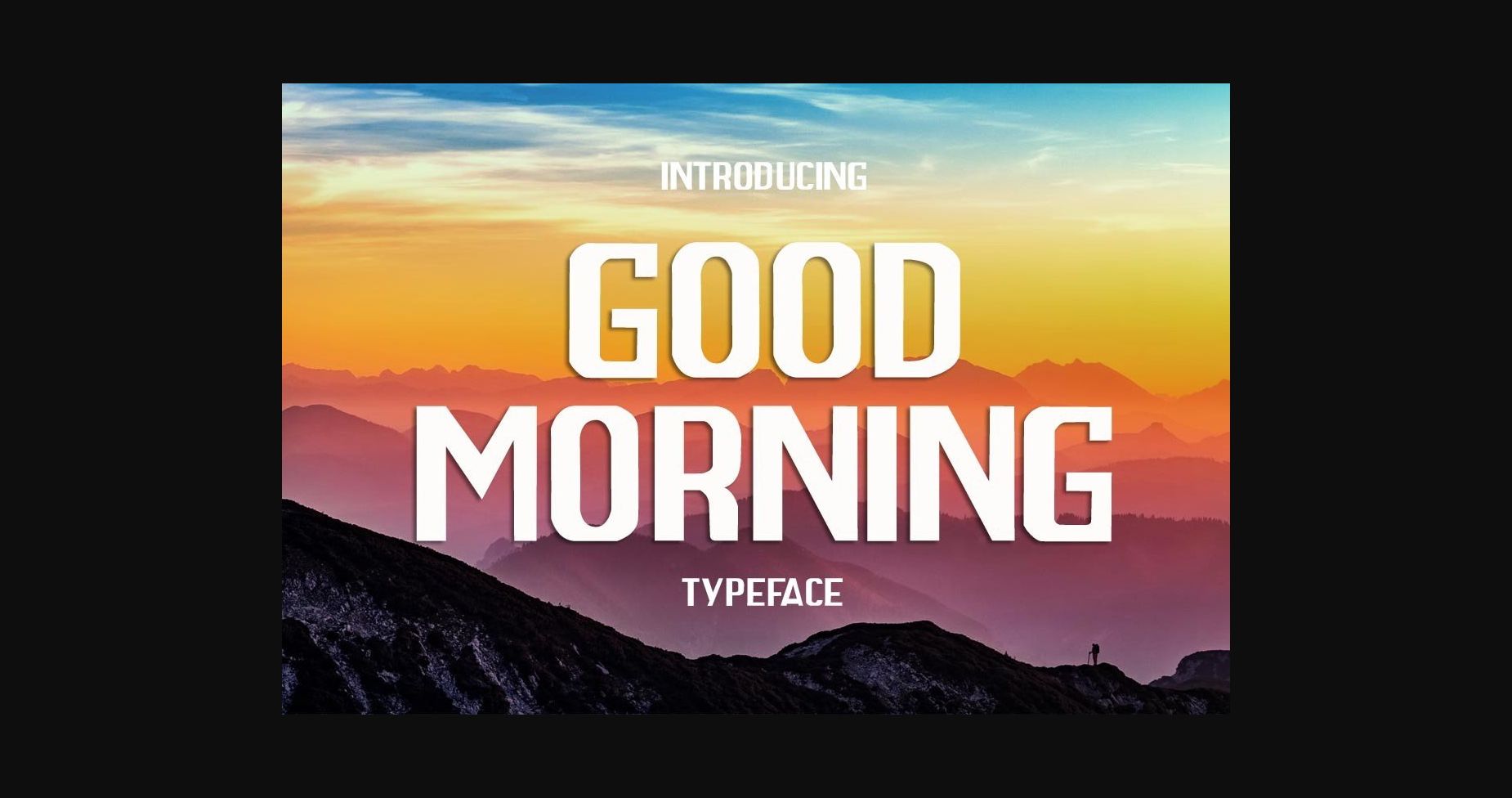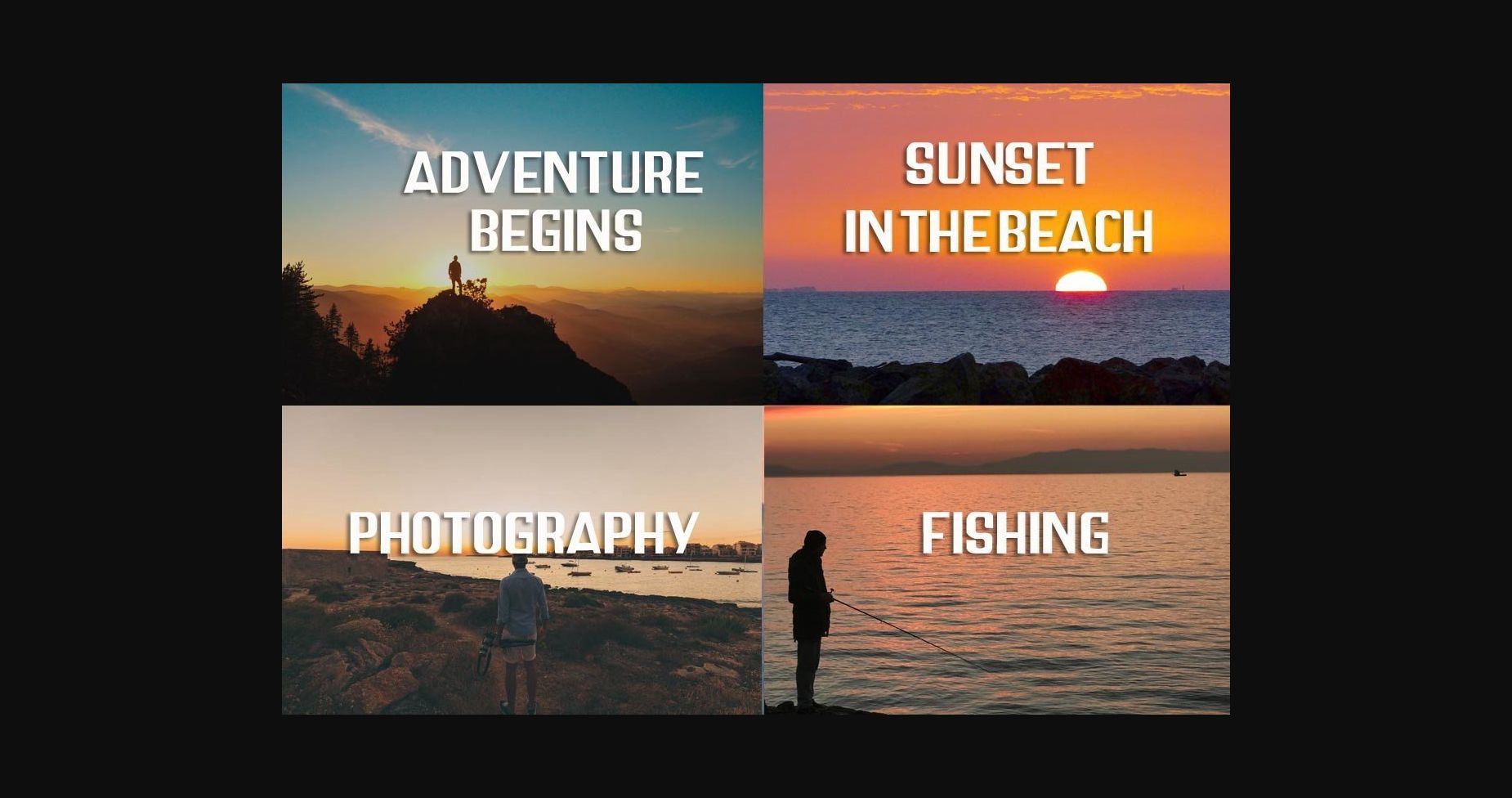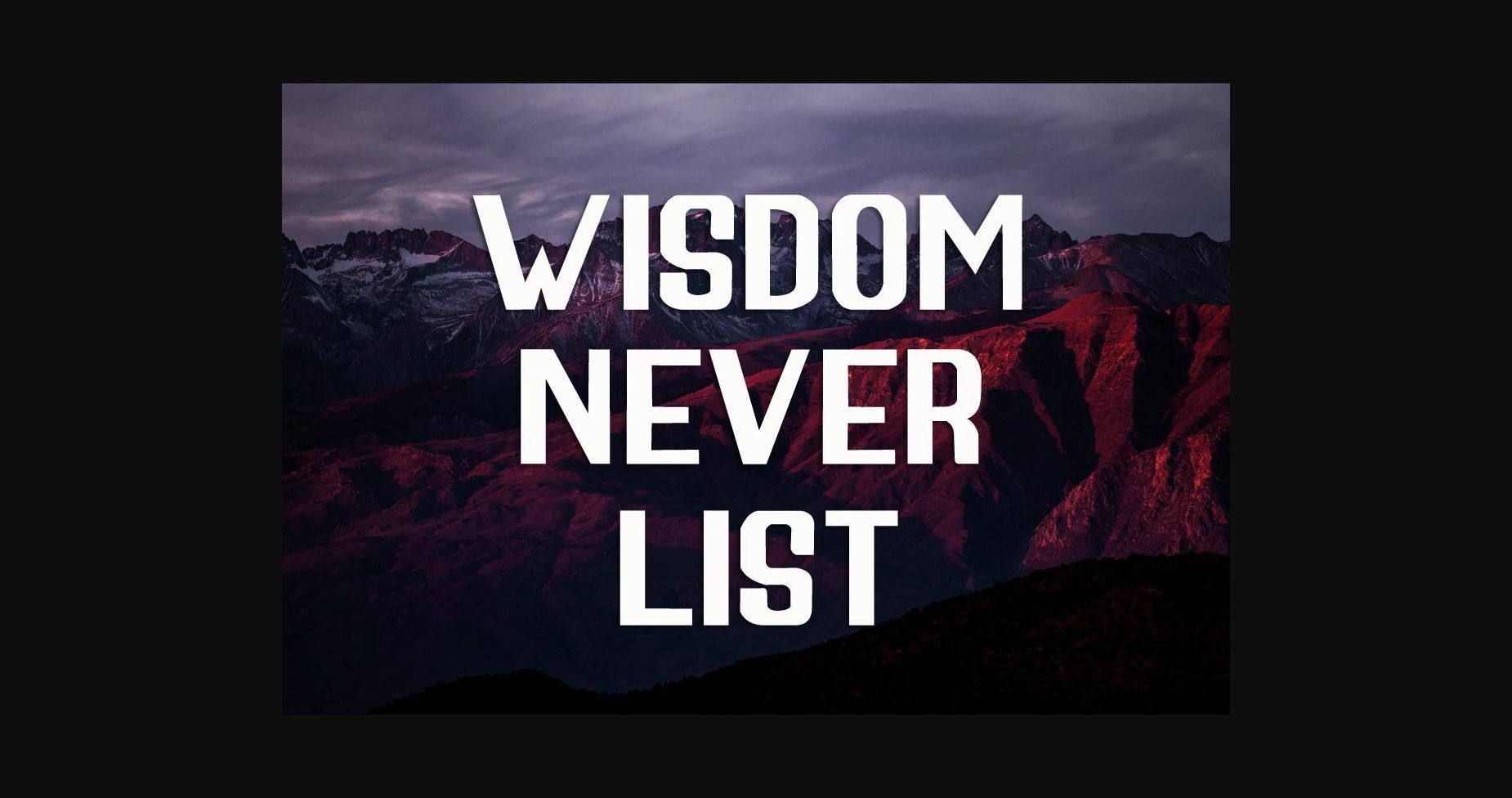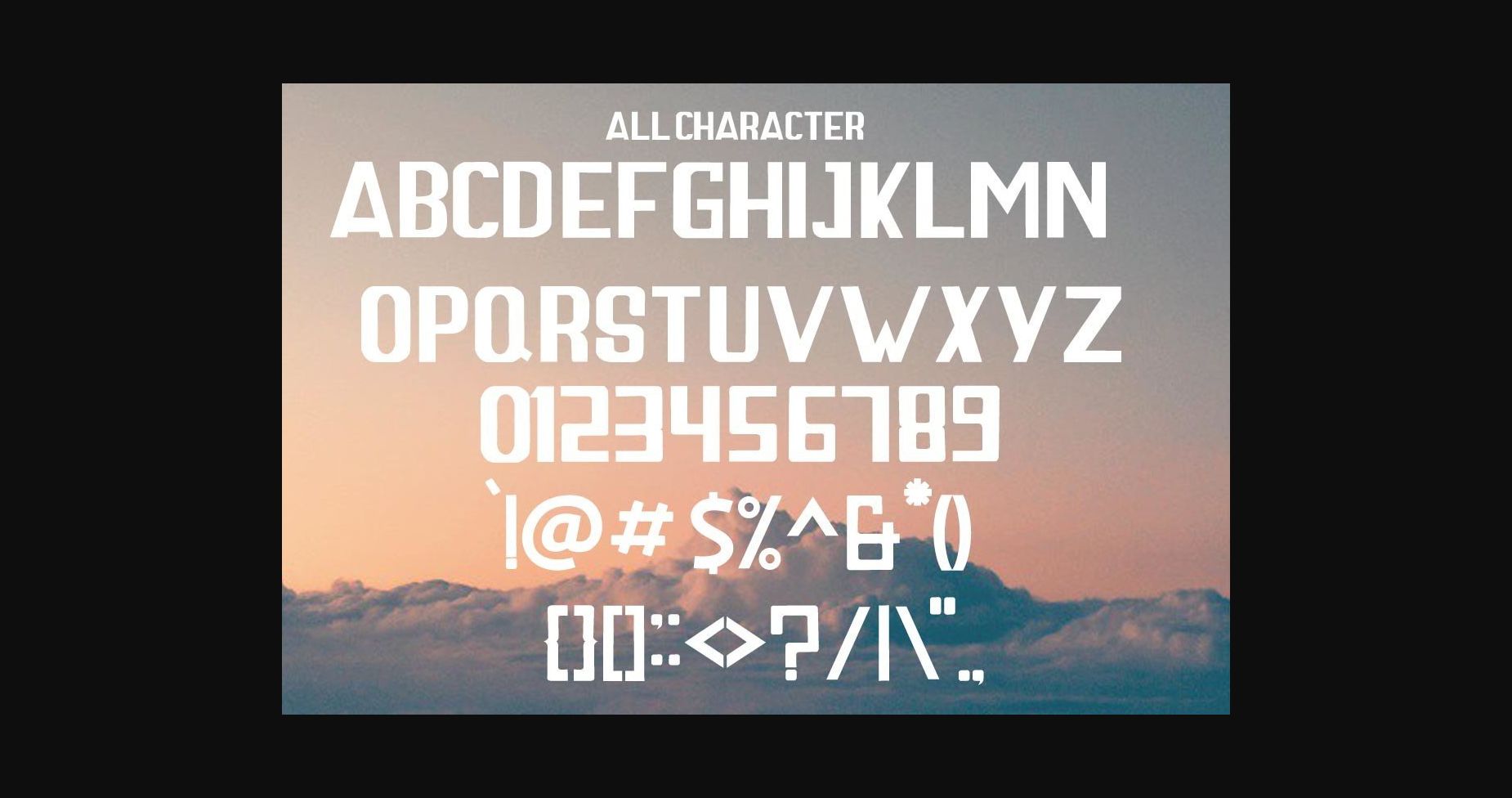
About Good Morning Font
Good Morning is a versatile sans serif typeface. It has a bit of a vintage, retro look and is great
for a multitude of different uses. This includes designs such as logotypes, graphical lettering,
vintage graphics, and any type of graphic that requires a sans serif with a bit of character.